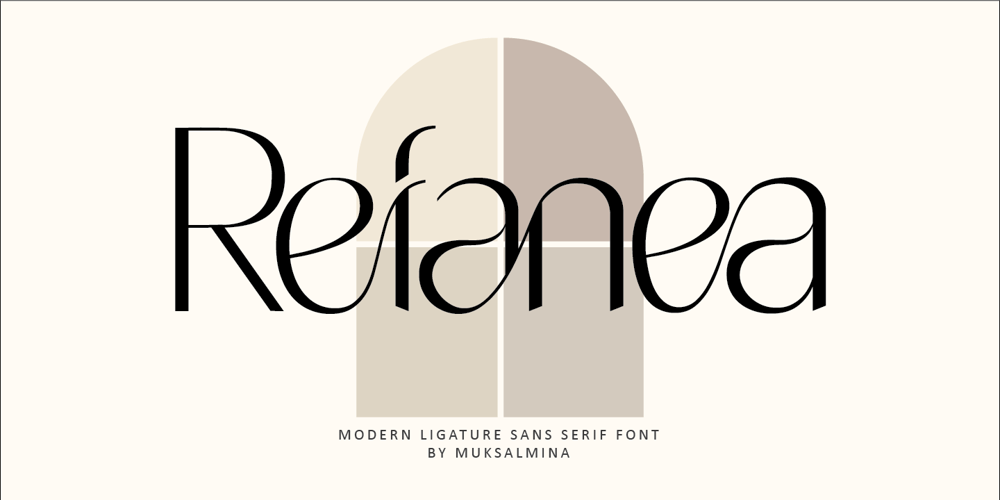
Refanea
Refanea font
Refanea Font Family was designed by Muksalmina and published by Muksal Creatives. Refanea contains 1 styles and family package options. Rafanea Modern ligature sans serif font, special glyphs, ornament and multilingual support. It’s a very versatile font that works great in large and small sizes. Perfect for editorial projects, Logo design, Clothing Branding, product packaging, magazine headers, or simply as a stylish text overlay to any background image.